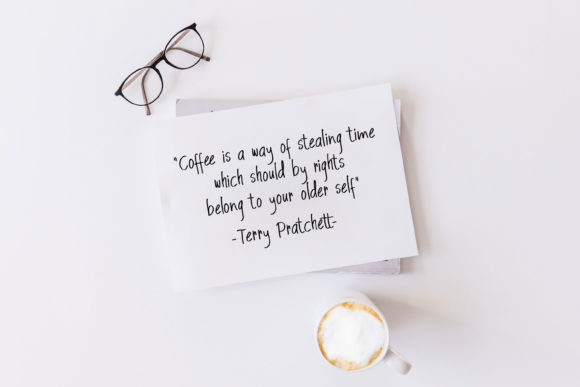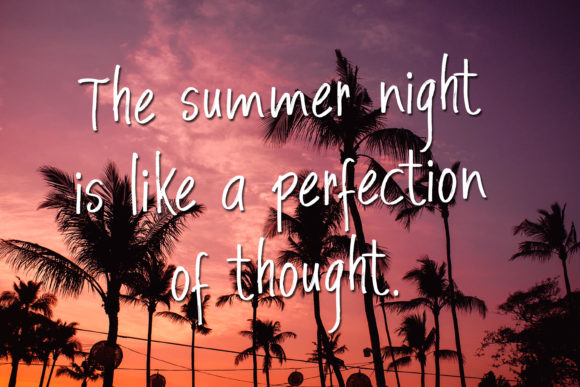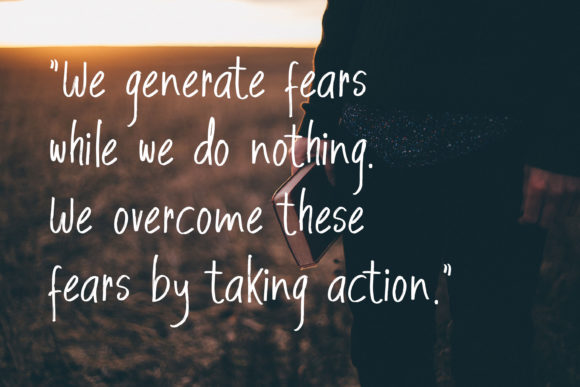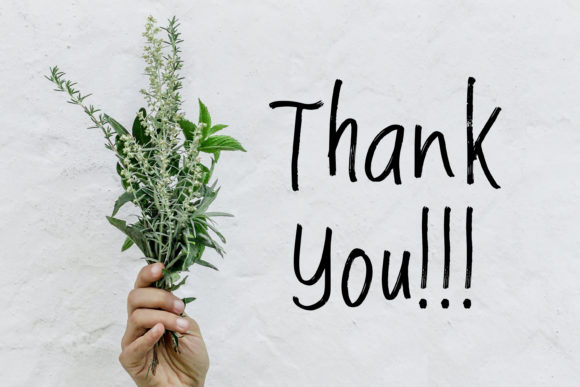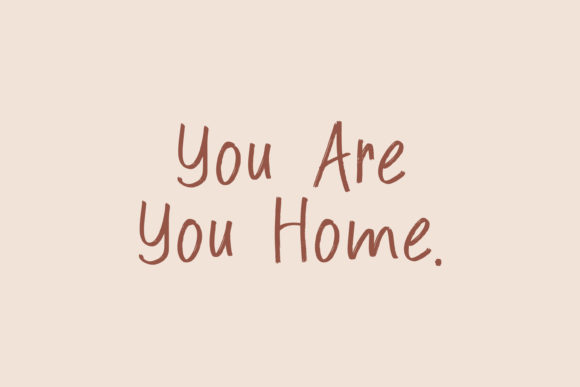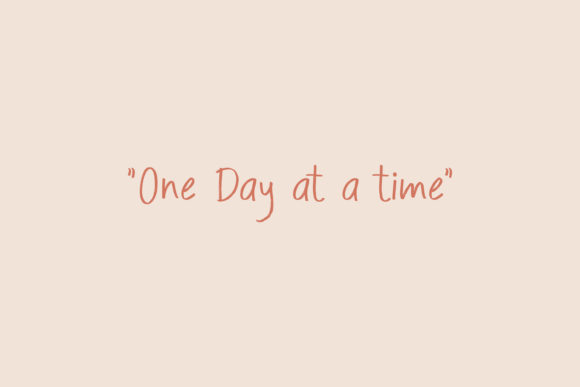
Introduction to Embolism Spark Font
Embolism Spark is a natural script font covering a wide range of project designs.
It is ideal for branding, greetings, beautiful quotes, fun packaging design, clothing, product packaging, magazine headers, poster designs and so much more .
Key Features of Embolism Spark Font
Why Choose Embolism Spark Font?